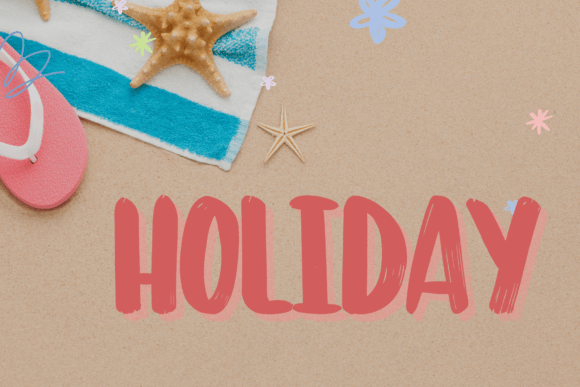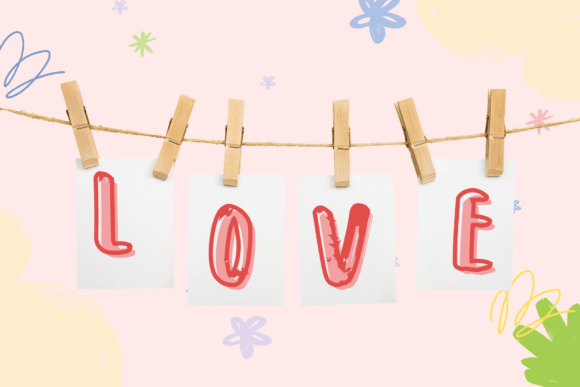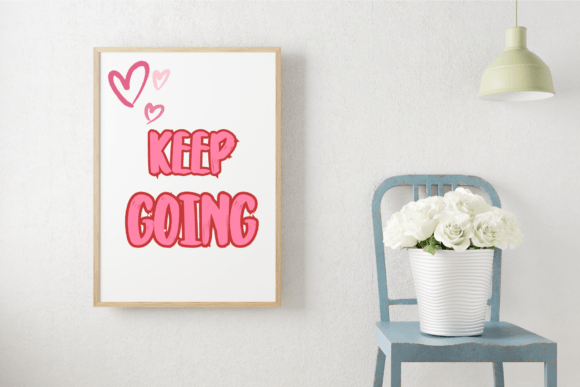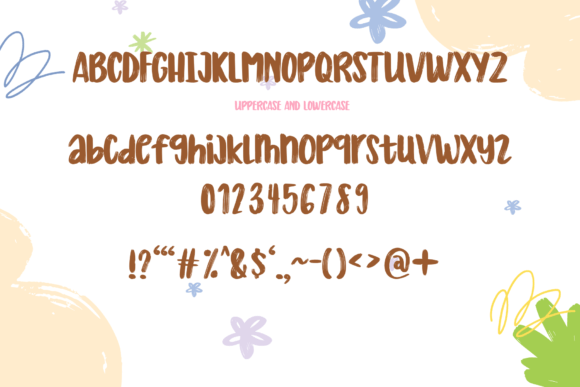
Brown Box Font: The Perfect Handwritten Font for Your Design Projects
Are you looking for a font that can add a touch of personality to your design projects? Look no further than the Brown Box Font! This cute and friendly handwritten font is perfect for casual type in greeting cards, illustrations, quotes, quaint branding, book covers, children’s books, packaging, and so much more.
What is Brown Box Font?
Brown Box Font is a unique and charming handwritten font that is designed to bring a sense of warmth and friendliness to your designs. Its casual and approachable style makes it perfect for a wide range of projects, from creative crafts to professional branding.
Key Features of Brown Box Font
- Cute and Friendly: Brown Box Font has a playful and charming personality that will make your designs stand out.
- Handwritten Style: The font has a natural, handwritten look that adds a touch of warmth and personality to your designs.
- Versatile: Brown Box Font is perfect for a wide range of projects, from greeting cards to book covers, and from illustrations to packaging.
- Easy to Read: The font is clear and easy to read, making it perfect for body text and headings.
Uses of Brown Box Font
Brown Box Font is a versatile font that can be used in a wide range of projects, including:
- Greeting Cards: Add a personal touch to your greeting cards with the warm and friendly Brown Box Font.
- Illustrations: Use Brown Box Font to add a playful and charming touch to your illustrations.
- Quotes: Make your quotes stand out with the unique and eye-catching Brown Box Font.
- Quaint Branding: Use Brown Box Font to create a charming and memorable brand identity.
- Book Covers: Add a touch of personality to your book covers with the Brown Box Font.
- Children’s Books: Brown Box Font is perfect for children’s books, with its playful and child-friendly style.
- Packaging: Use Brown Box Font to add a personal touch to your packaging designs.
Why Choose Brown Box Font?
There are many reasons why Brown Box Font is the perfect choice for your design projects:
- Unique Style: Brown Box Font has a unique and charming style that will make your designs stand out.
- High-Quality: Brown Box Font is a high-quality font that is designed to produce clear and crisp results.
Tips for Using Brown Box Font
Here are some tips for getting the most out of Brown Box Font:
- Use it with Images: Brown Box Font looks great when used with images, especially illustrations and photographs.
- Experiment with Colors: Try using Brown Box Font with different colors to add a pop of personality to your designs.
- Mix and Match: Mix and match Brown Box Font with other fonts to create a unique and eye-catching look.
- Pay Attention to Size: Make sure to adjust the size of Brown Box Font to ensure that it is clear and easy to read.
| Font Name | Brown Box Font |
| Author | nstudio design |
Brown Box Font is a unique and charming handwritten font that is perfect for designers and crafters looking to add a touch of personality to their design projects. With its cute and friendly style, versatility, and ease of use, Brown Box Font is the perfect choice for a wide range of projects. Whether you’re creating greeting cards, illustrations, or book covers, Brown Box Font is sure to make your designs stand out.